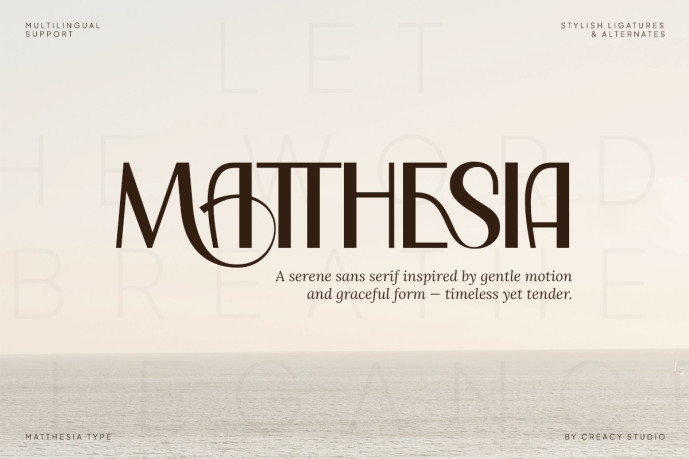
Matthesia – Elegant Sans Serif Font
Matthesia – Elegant Sans Serif with Stylish Ligatures
Matthesia is a refined sans serif typeface that merges modern elegance with a graceful decorative touch. Featuring a timeless structure, Matthesia stands out with its fluid ligatures and artistic alternates, making it ideal for projects that demand both professionalism and charm.
With its tall, soft-serifed letterforms and unique swashes integrated into uppercase and ligature combinations, this typeface is perfect for branding, editorial titles, logos, fashion campaigns, and elegant signage. Matthesia evokes a sense of serenity and sophistication, striking a balance between contemporary minimalism and expressive motion.
Features:
• Uppercase & lowercase letters
• Extensive stylistic alternates (SS01 & SS02)
• Over 60+ unique ligatures
• Multilingual support
• PUA encoded for easy access to alternates
• Perfect for logos, packaging, posters, wedding themes, and social media graphics
Whether you’re crafting a luxury skincare label, an artful clothing brand, or a poetic quote post, Matthesia will elevate your design with its artistic flair and gentle boldness.